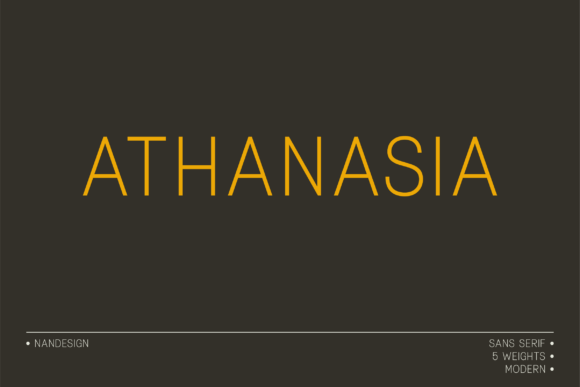
Athanasia Font: The Epitome of Elegance and Minimalism in Typography
In the realm of typography, few font families have managed to strike a balance between elegance and minimalism as effectively as Athanasia Font. This sans-serif masterpiece is not just a font; it’s an experience, designed to elevate your creative projects to unprecedented heights of sophistication and luxury. With its 5 distinct weights, Athanasia Font offers an unmatched versatility, making it the perfect companion for a wide array of design endeavors, from the pages of magazines and logos to the grandeur of film posters.
Unveiling the Features of Athanasia Font
- 5 Distinct Weights: Athanasia Font is not just a single font; it’s a family of 5 different weights. This range allows designers to maintain consistency across various platforms and projects while providing the flexibility to emphasize certain aspects over others.
- Precision and Detail: Every curve, every line, and every space in Athanasia Font has been meticulously crafted. The attention to detail ensures that the font exudes a sense of luxury and sophistication, making it perfect for high-end projects.
- Versatility: Whether you’re working on a magazine, a logo, a film poster, or any other design project, Athanasia Font adapts seamlessly. Its clean lines and elegant appearance make it suitable for a wide range of applications.
- Timeless Charm: In a world where trends come and go, Athanasia Font stands out for its timeless appeal. Its design ensures that your projects won’t look dated anytime soon, saving you the hassle of frequent redesigns.
The Design Philosophy Behind Athanasia Font
Athanasia Font is more than just a collection of letters and numbers; it’s a reflection of a design philosophy that values elegance, simplicity, and versatility. The creators of Athanasia Font embarked on a journey to craft a font that not only meets the demands of modern design but also pushes the boundaries of what is possible with typography.
The design process involved a deep dive into the world of sans-serif fonts, identifying areas where even the most popular fonts fell short in terms of elegance and adaptability. The result is a font that feels both contemporary and timeless, a rare achievement in the fast-paced world of design.
Exploring the Applications of Athanasia Font
The versatility of Athanasia Font makes it an excellent choice for a myriad of design projects. Here are a few examples where Athanasia Font truly shines:
- Magazines and Journals: The readability and elegance of Athanasia Font make it perfect for the body text of magazines and journals. Its range of weights allows for clear differentiation between headings and content.
- Logos and Branding: For businesses looking to make a statement, Athanasia Font offers a clean and sophisticated look that can be tailored to fit any brand’s identity through its various weights.
- Film Posters and Advertising: The luxurious feel of Athanasia Font can add a touch of glamour to film posters and advertising materials, making them stand out in a crowded market.
- Web Design: With the increasing importance of digital presence, Athanasia Font’s clean lines and elegant appearance make it an excellent choice for website design, enhancing user experience with its readability and aesthetic appeal.
Unlocking a New Level of Creativity with Athanasia Font
Athanasia Font is not just a tool; it’s a catalyst for creativity. By providing a font that combines elegance with versatility, designers are empowered to push the boundaries of their imagination. The limitations that often come with typography are significantly reduced with Athanasia Font, allowing for a more focused and inspired creative process.
The psychological impact of using a premium font like Athanasia cannot be understated. It can elevate the perceived value of your designs, making them more compelling to your audience. Whether you’re a seasoned designer or just starting out, Athanasia Font offers a chance to redefine your work and present it in the best possible light.
Athanasia Font stands as a testament to the power of thoughtful design. It’s a font family that understands the needs of modern designers and strives to meet and exceed those expectations. With its elegant appearance, versatile range of weights, and the ability to adapt to various design projects, Athanasia Font is poised to become a staple in the world of typography.
Whether you’re looking to add a touch of sophistication to your magazine, create a lasting impression with your logo, or bring a sense of luxury to your advertising materials, Athanasia Font is the perfect choice. It’s not just about selecting a font; it’s about embracing a design philosophy that values elegance, simplicity, and creativity.
Transform your designs with Athanasia Font and discover a new realm of possibilities in typography.